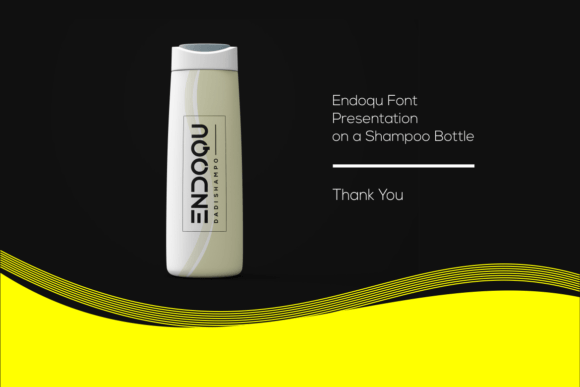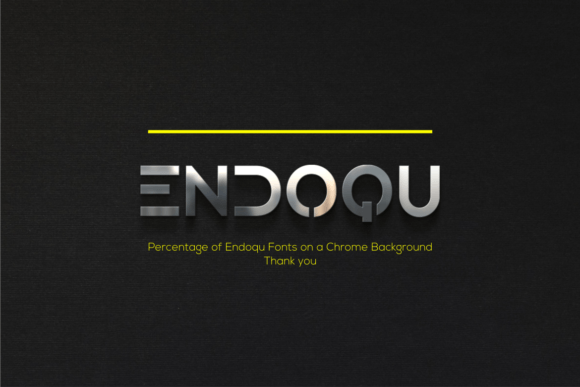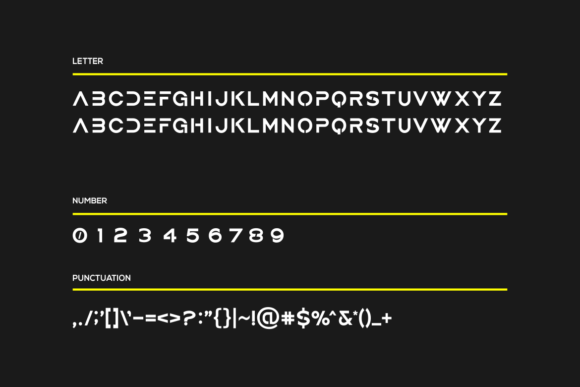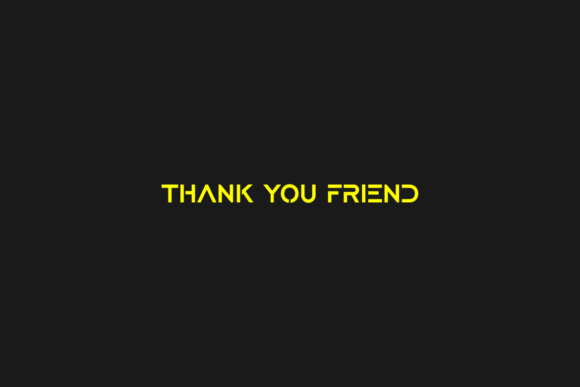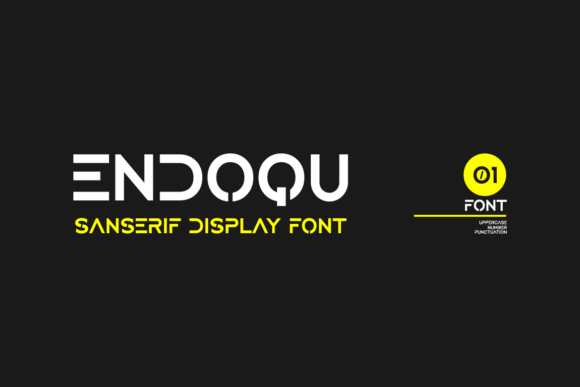
Introducing Endoqu Font: The Ultimate Asset for Designers and Crafters
As a designer or crafter, you’re always on the lookout for the perfect font to elevate your work. Look no further than Endoqu Font, a clean and simple display font that’s become a staple in many creative’s toolkit. In this article, we’ll dive into the features and benefits of Endoqu Font, and explore why it’s a must-have for any serious designer or crafter.
What is Endoqu Font?
Endoqu Font is a beautifully crafted display font that’s designed to make your work stand out. With its simple yet elegant appearance, it’s perfect for a wide range of projects, from branding and advertising to crafting and DIY tutorials. The font comes in both OTF and TTF formats, making it easy to install and use on your computer.
Features Overview
- Simple appearance: The font’s clean and simple design makes it easy to read and works well with a variety of design styles.
Why Choose Endoqu Font?
So why should you choose Endoqu Font over other display fonts on the market? For starters, its simplicity and elegance make it a versatile font that works well with a wide range of design styles. Additionally, the font is designed to be easy to read, making it perfect for body text and headings. Plus, with its clean lines and minimalist aesthetic, Endoqu Font is sure to complement any design without overpowering it.
How to Use Endoqu Font
- Experiment with different sizes: Endoqu Font works well at a variety of sizes, from small headings to large display text.
- Pair it with other fonts: Try pairing Endoqu Font with other fonts to create a unique and eye-catching design.
- Use it for body text: While Endoqu Font is designed as a display font, it’s also suitable for body text in some designs.
In conclusion, Endoqu Font is a must-have asset for any serious designer or crafter. With its clean and simple design, ease of use, and compliance with regulations, it’s the perfect font for a wide range of projects. By supporting creators like the one behind Endoqu Font, you’re helping to ensure that high-quality assets continue to be produced. So why wait? Download Endoqu Font today and take your designs to the next level.